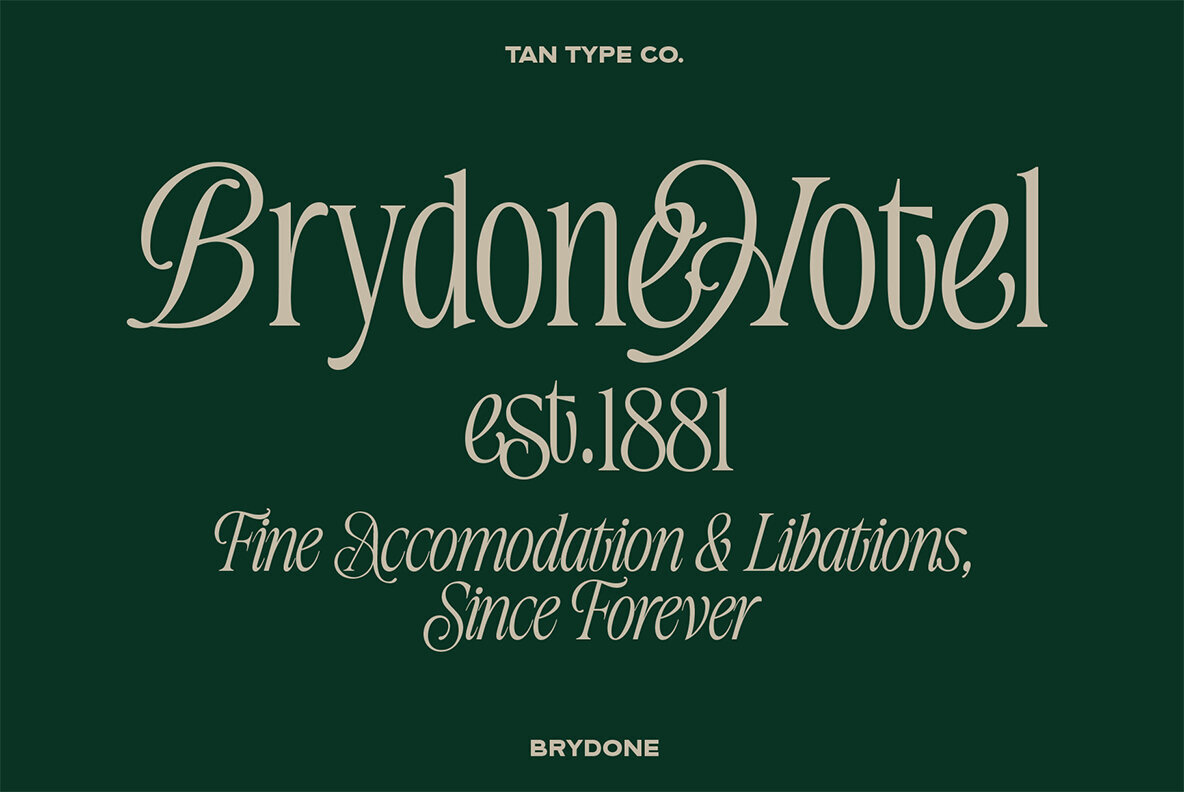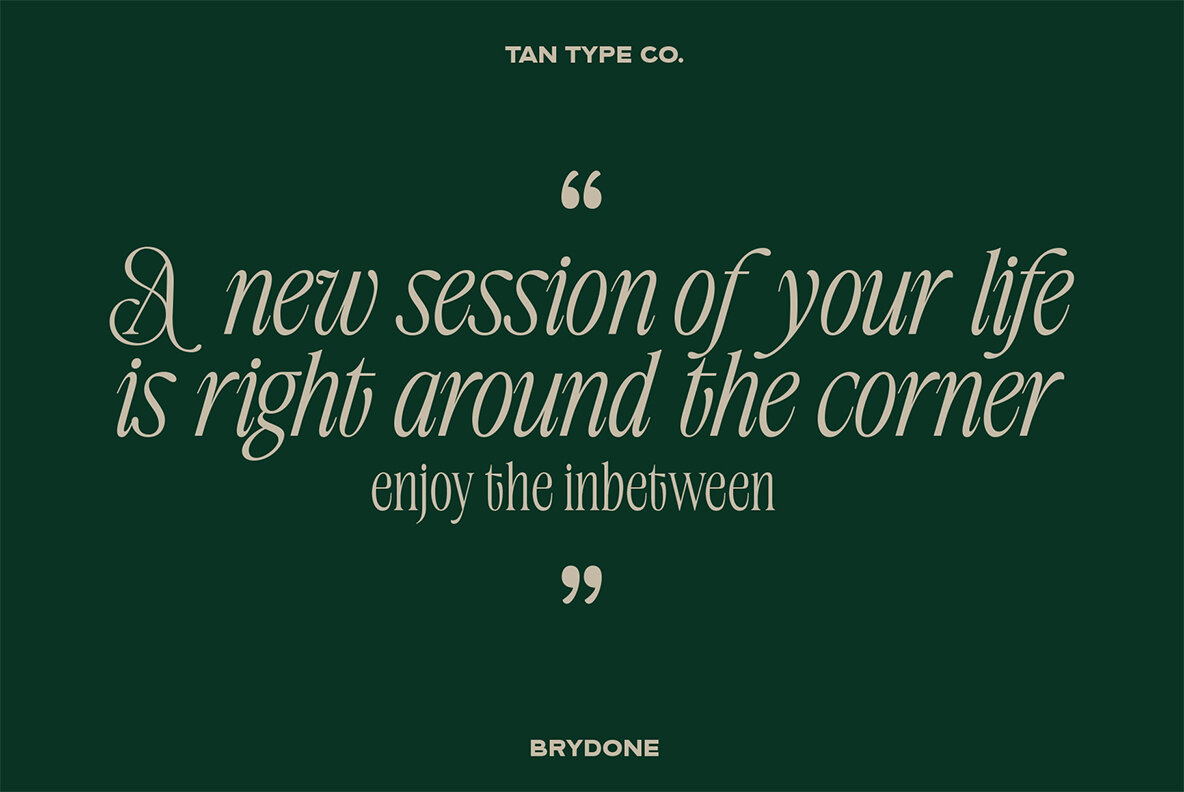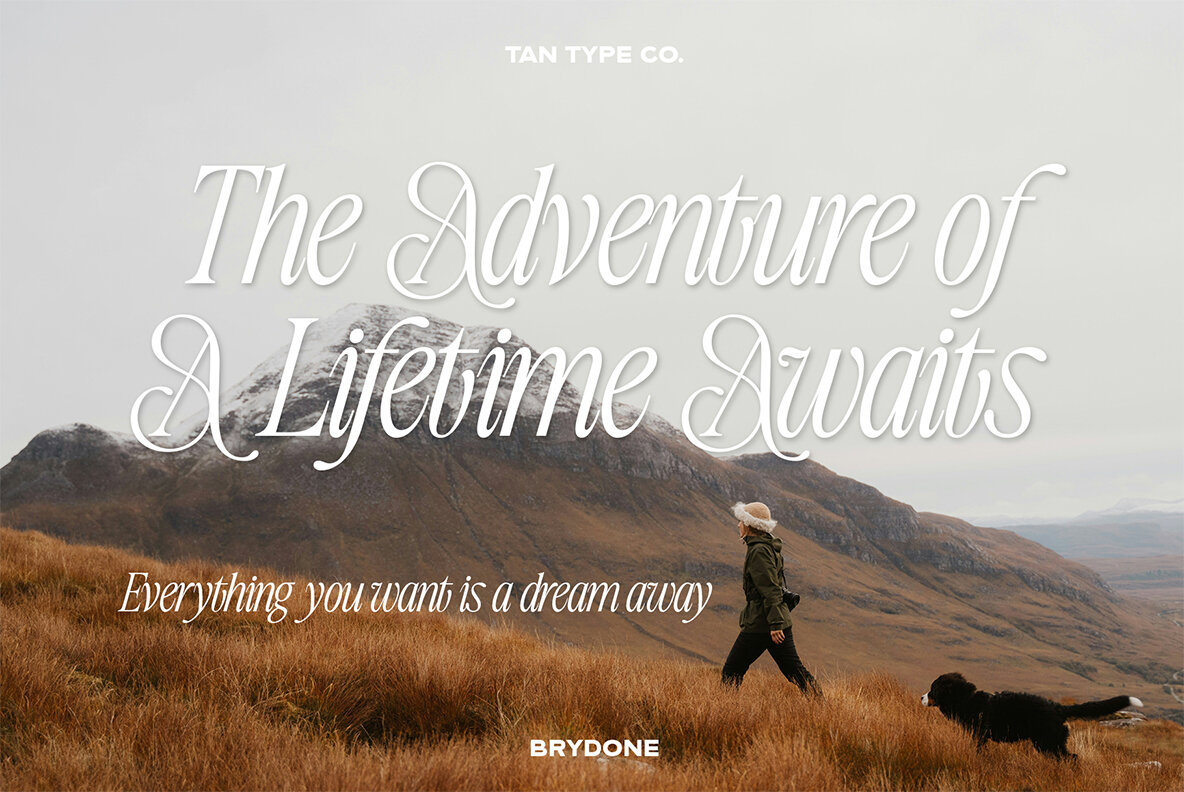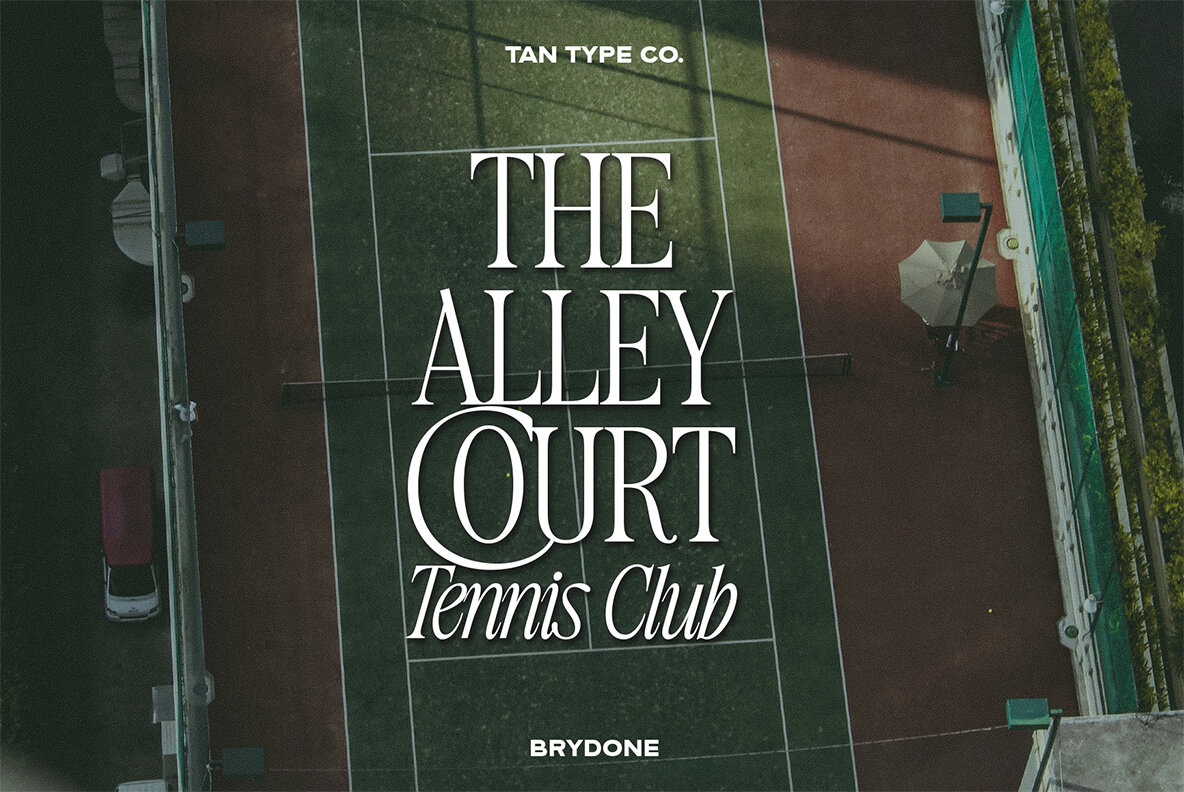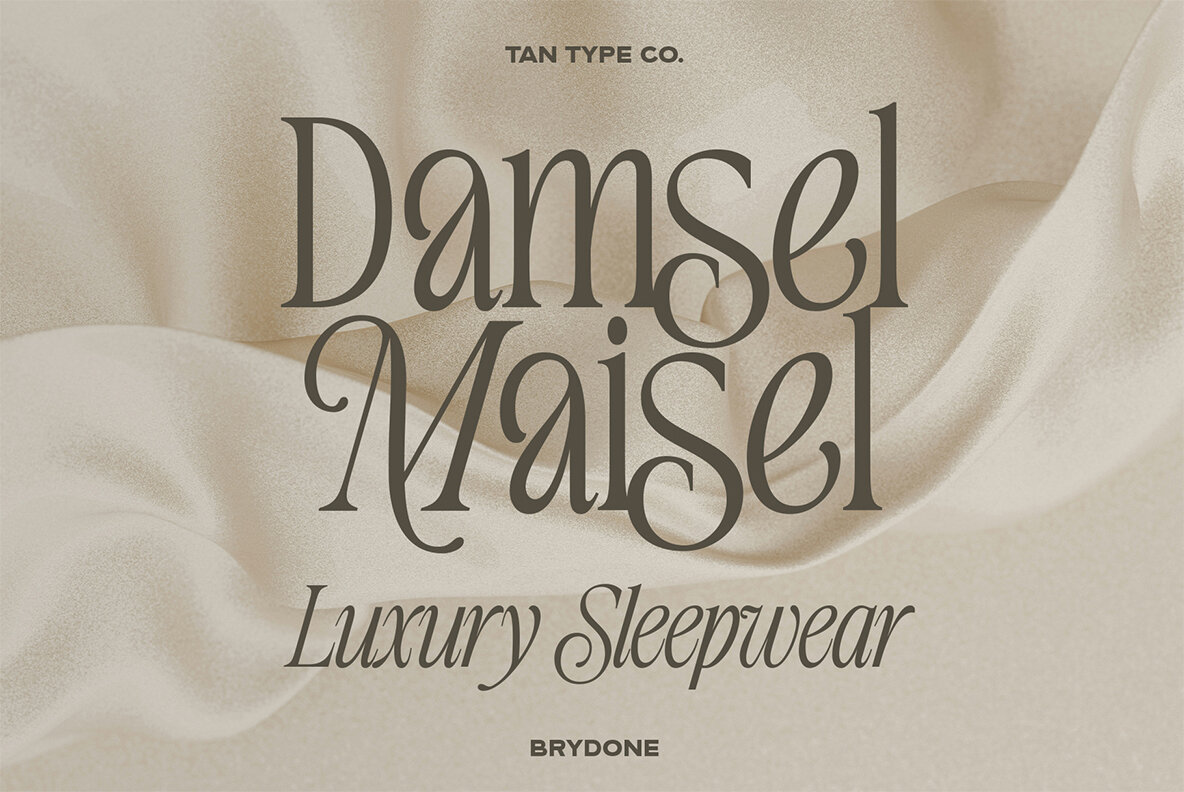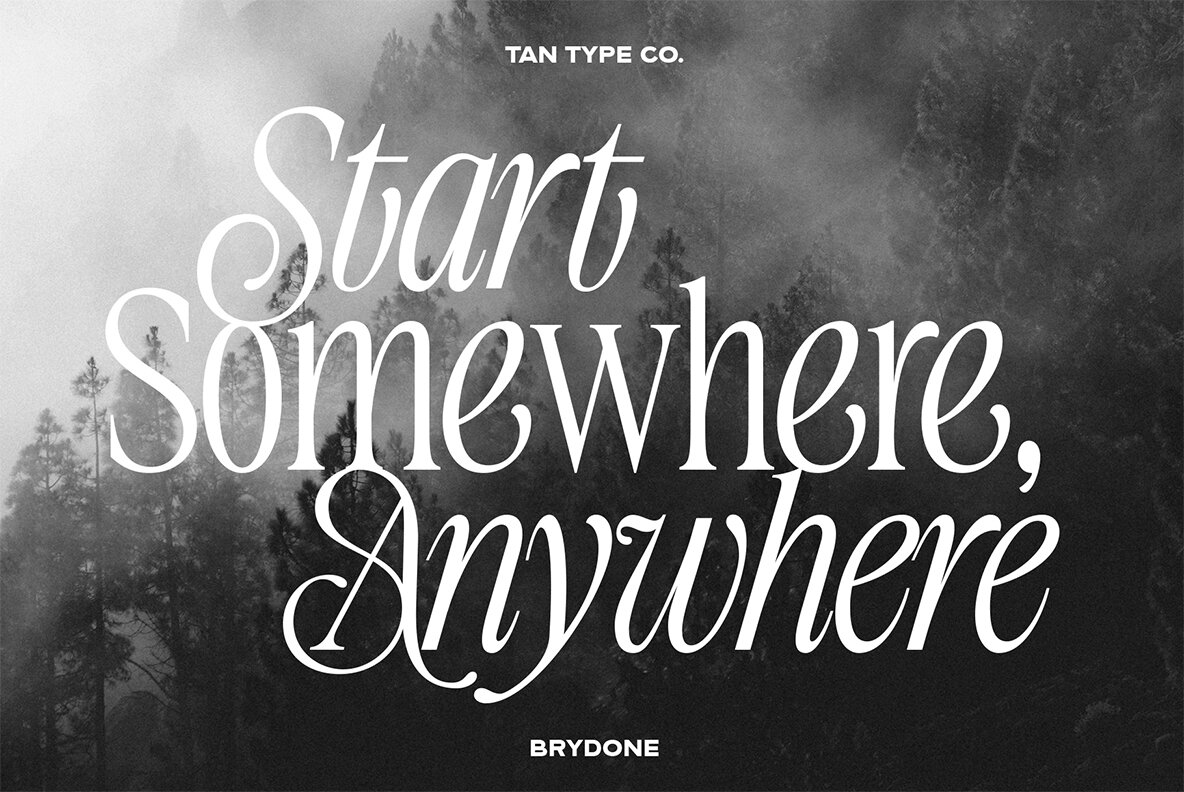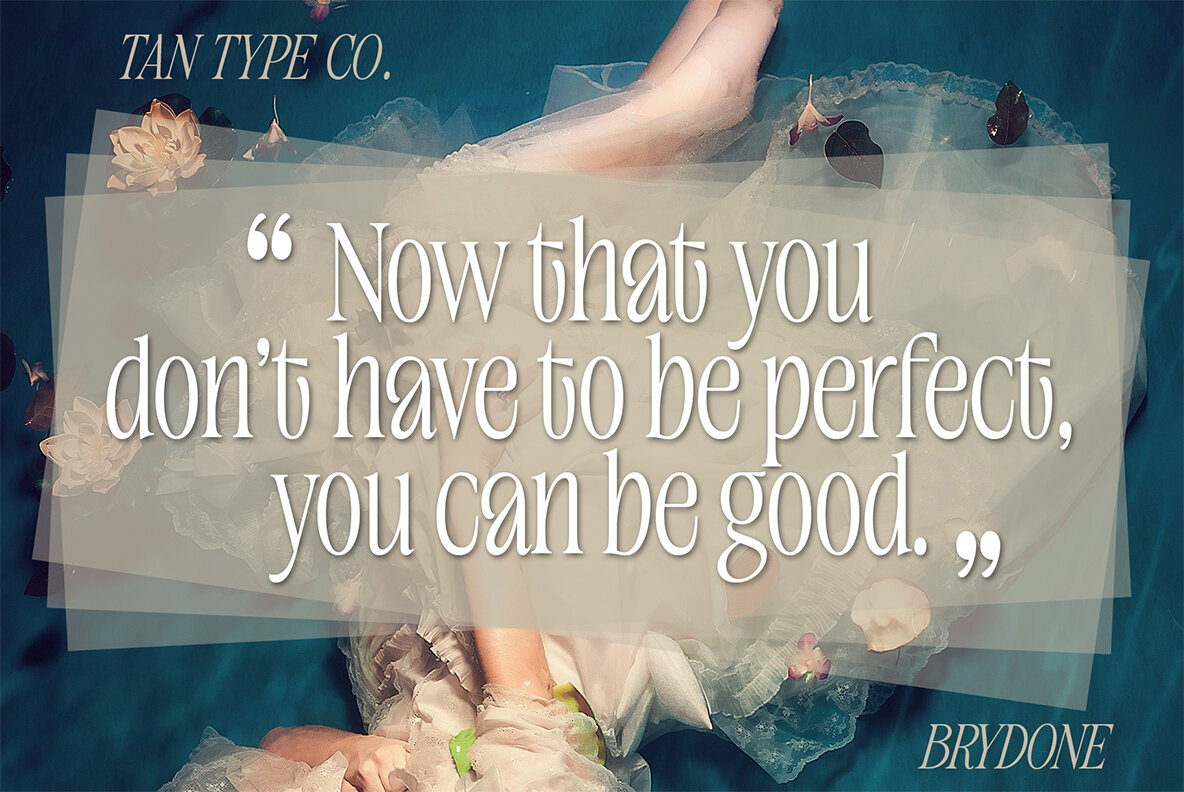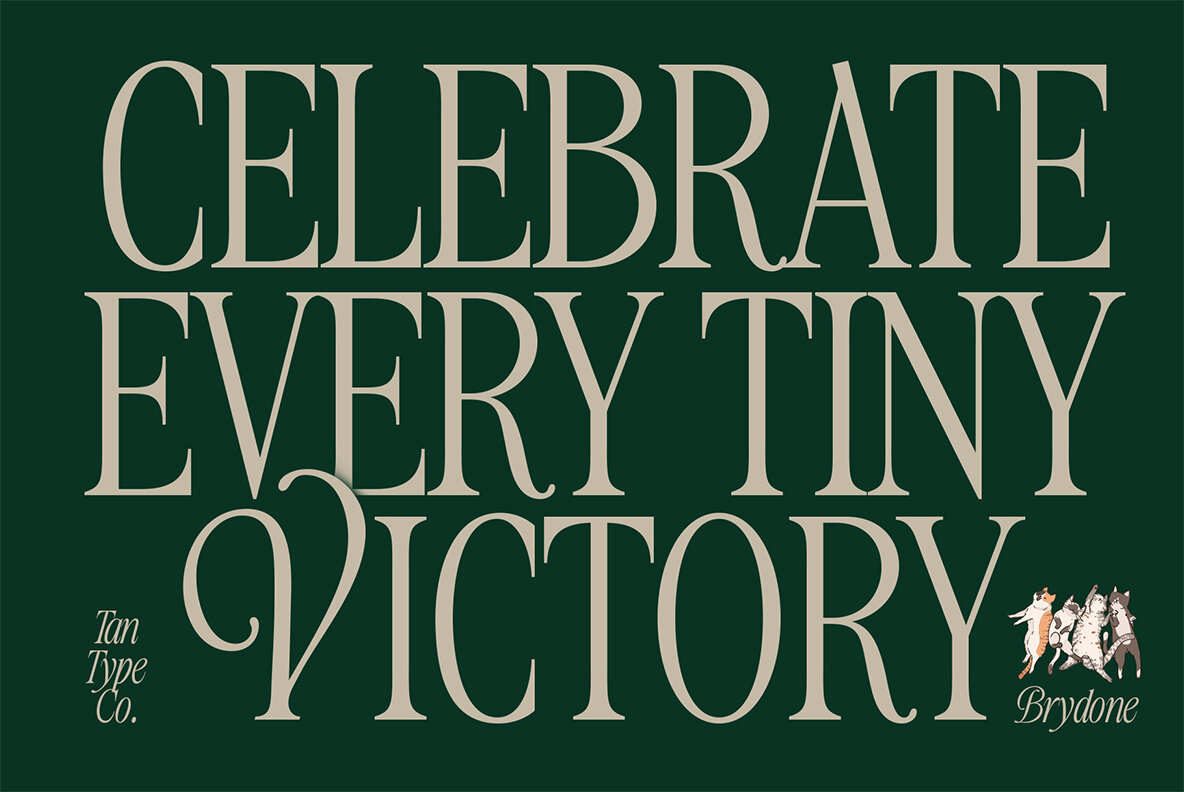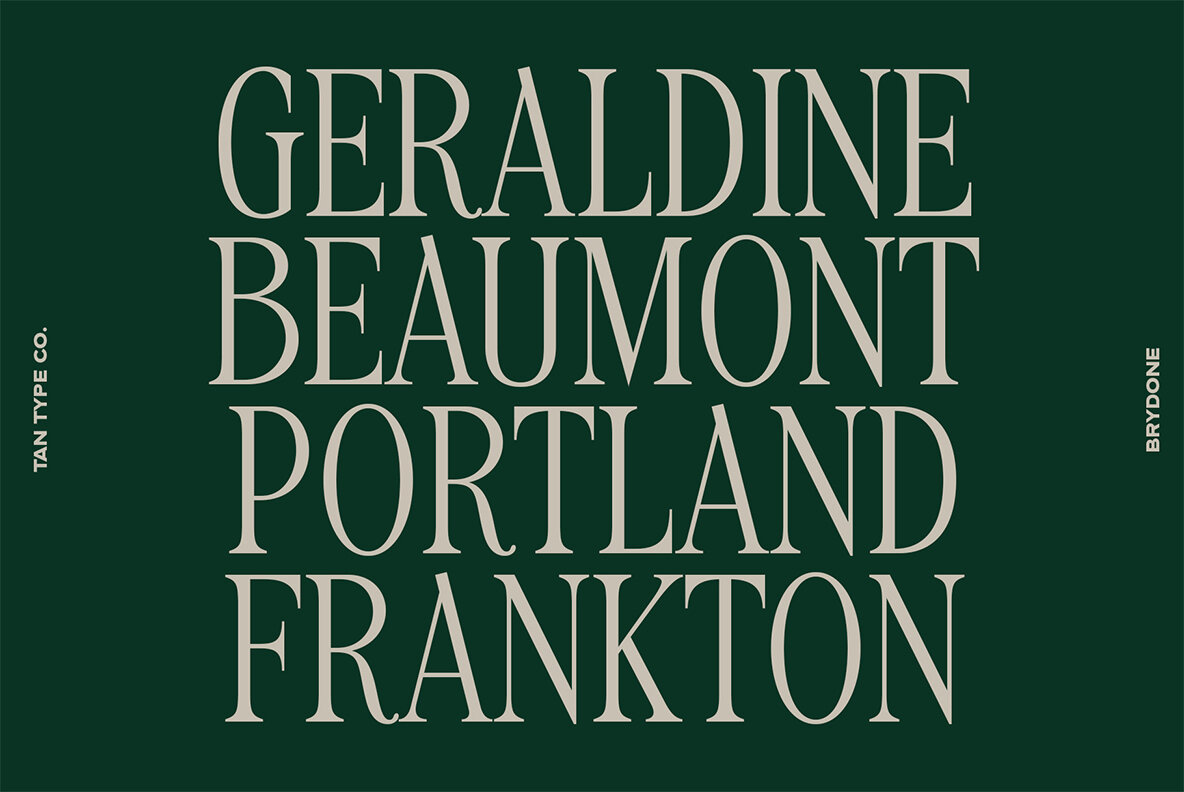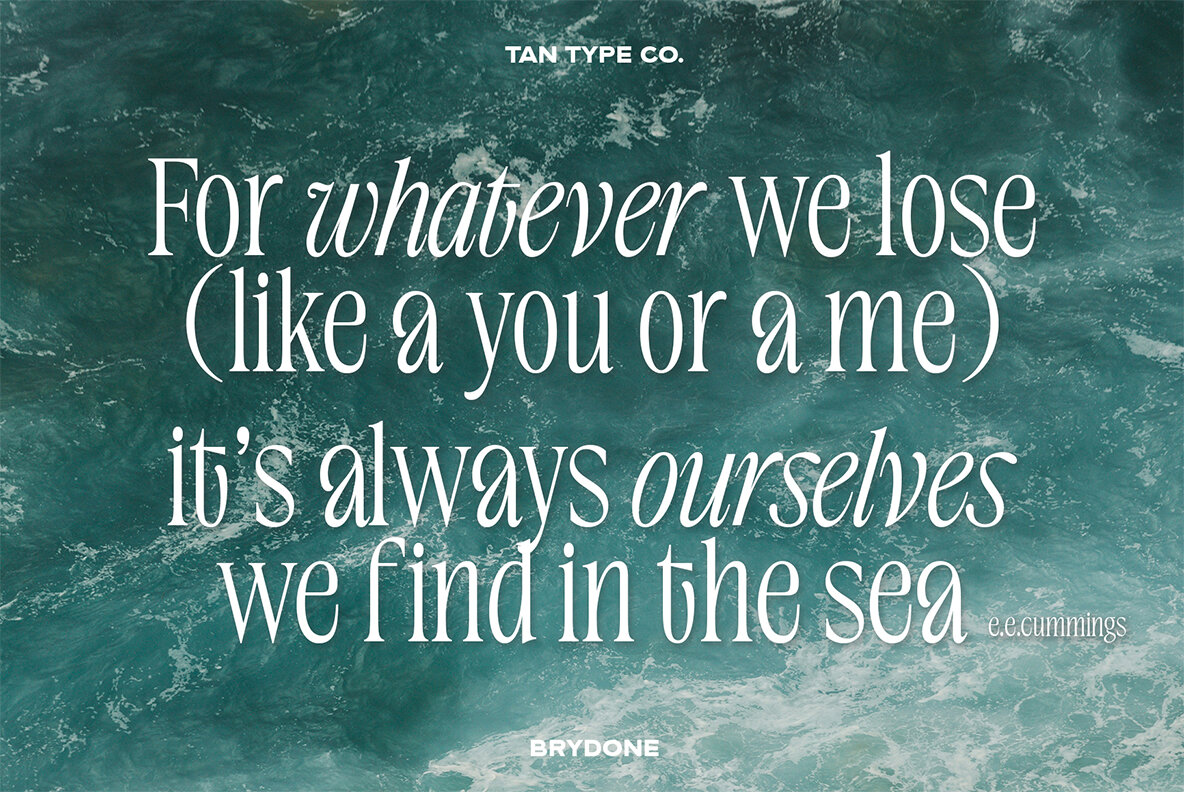
Brydone Font
Introducing Brydone, a charming serif typeface that blends classic elegance with a warm, approachable demeanor. With its gently rounded edges and timeless letterforms, Brydone exudes reliability and friendliness, making it perfect for both print and digital media. Whether you're crafting a heartfelt message, a cozy invitation, or a professional document, Brydone brings a touch of sophistication without sacrificing warmth. Its versatile nature ensures that it stands out while maintaining a sense of familiarity, making every word feel welcoming and trustworthy. Embrace the classic charm of Brydone and let your text resonate with character and grace.
TanType Co. is a distinguished font designer specializing in classical and decorative typefaces that exude elegance and sophistication. Renowned for their meticulous craftsmanship, each type design by TanType Co. is packed with over 300 glyphs and features advanced OpenType functionalities, ensuring versatilit...